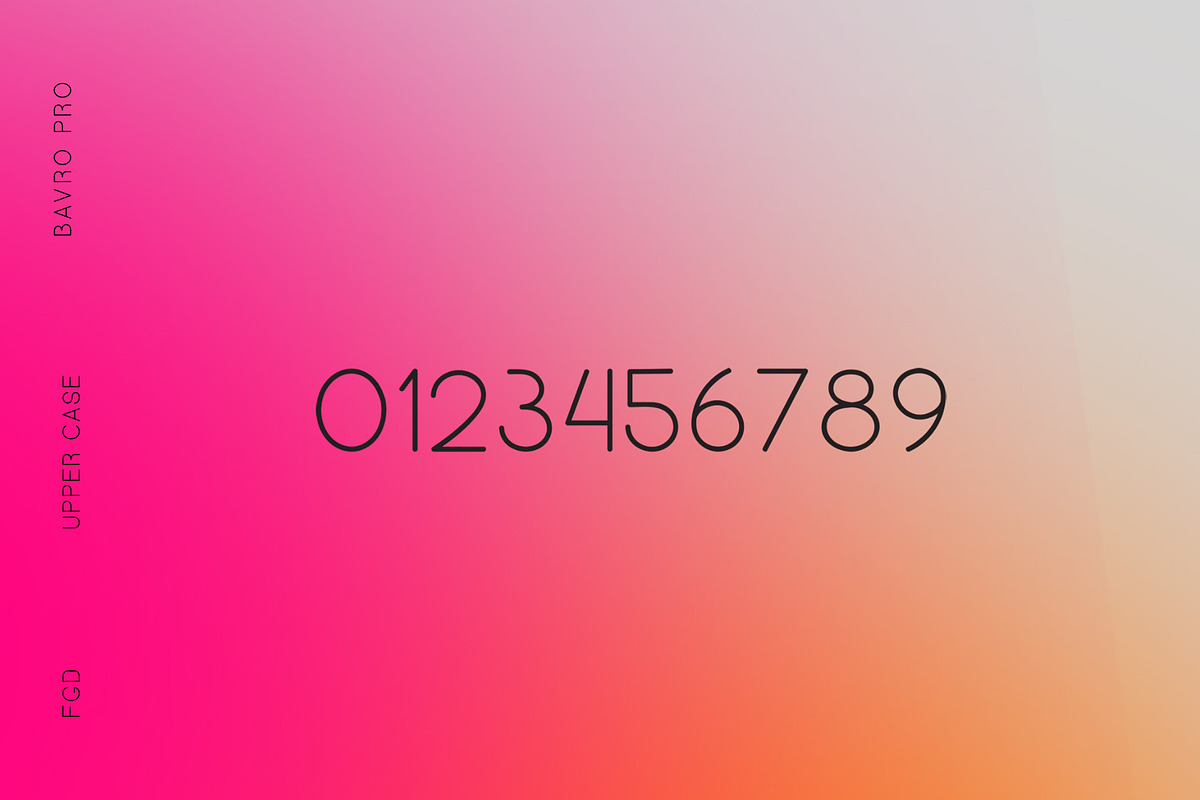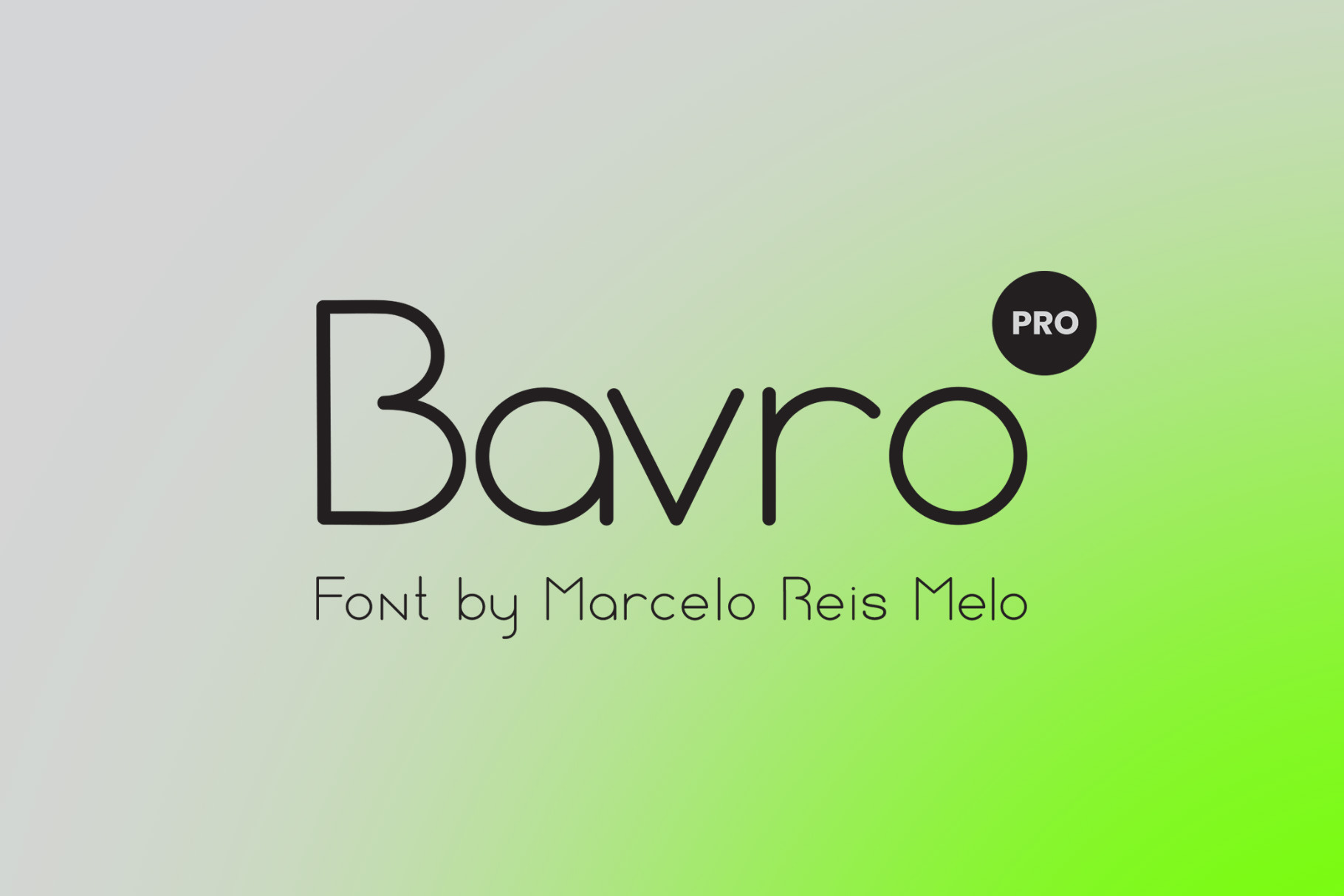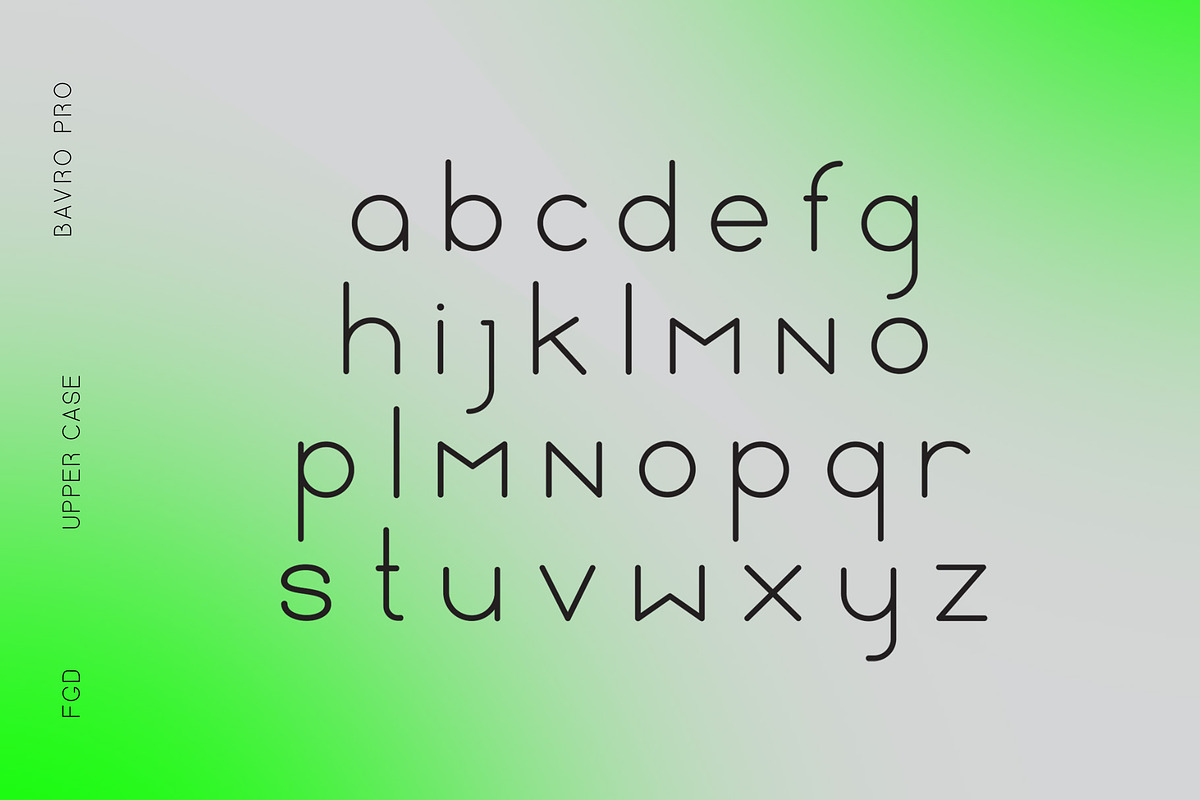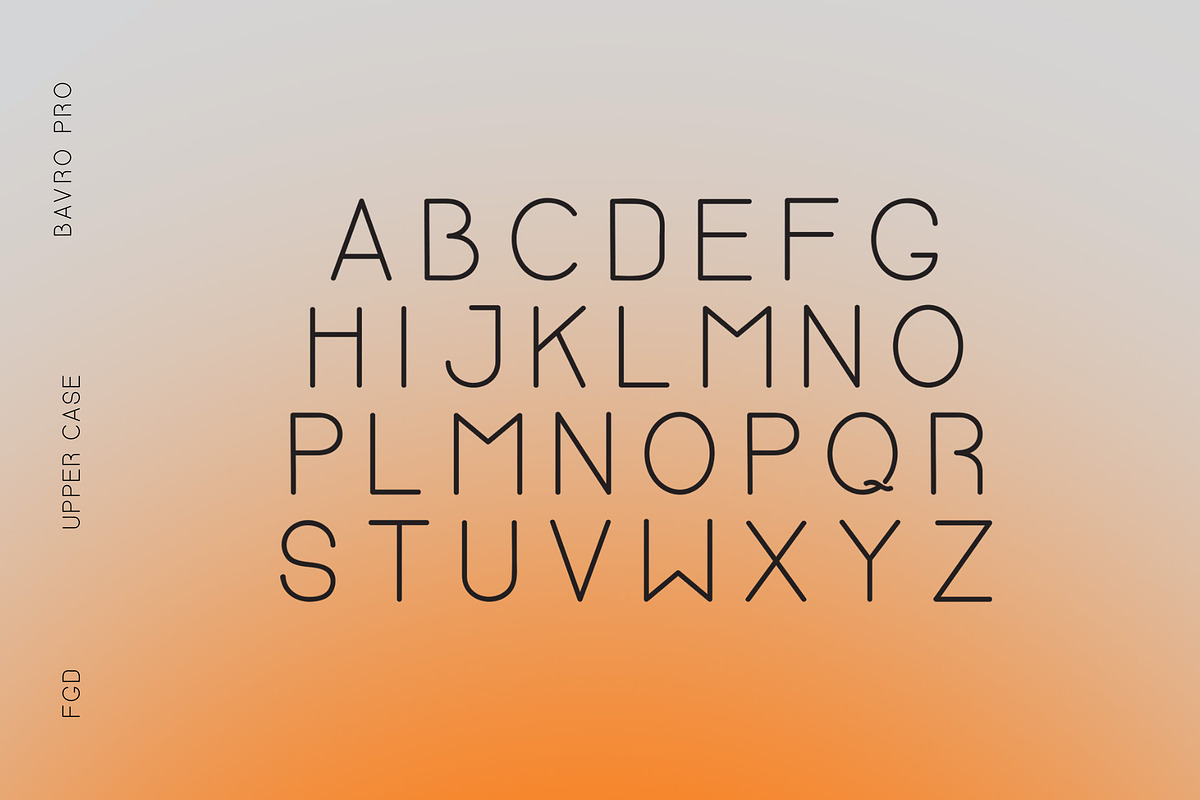
Bavro Pro Font
We've been working a lot in the Bavro pro cover all English, African and Western Europe characters and add some Central European as well. Probaly our biggest font launch so far! We are really proud to present this font to you guys and we hope you make awesome stuff with it! Bavro is a very nice clean font perfect for posters and headlines, and long texts this font is made by Marcelo Reis Melo. Avaiable in the formats OTF TTF and WEBFONT.